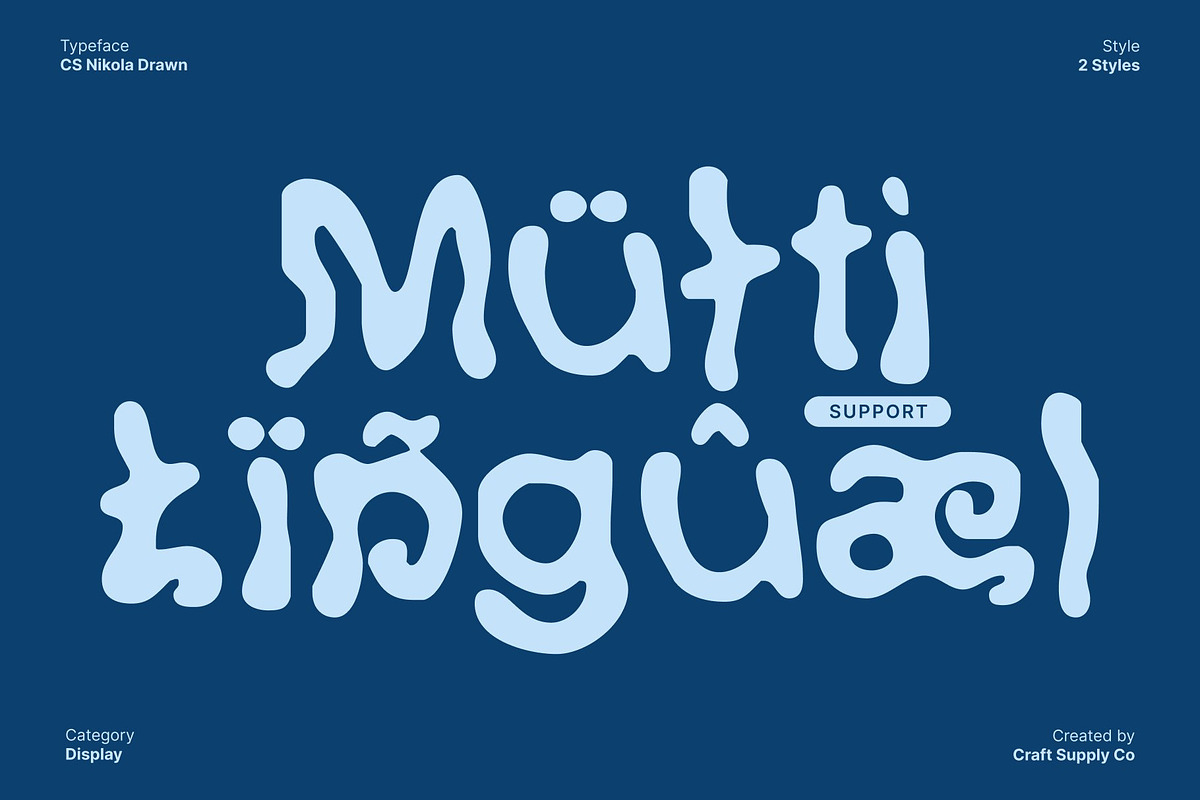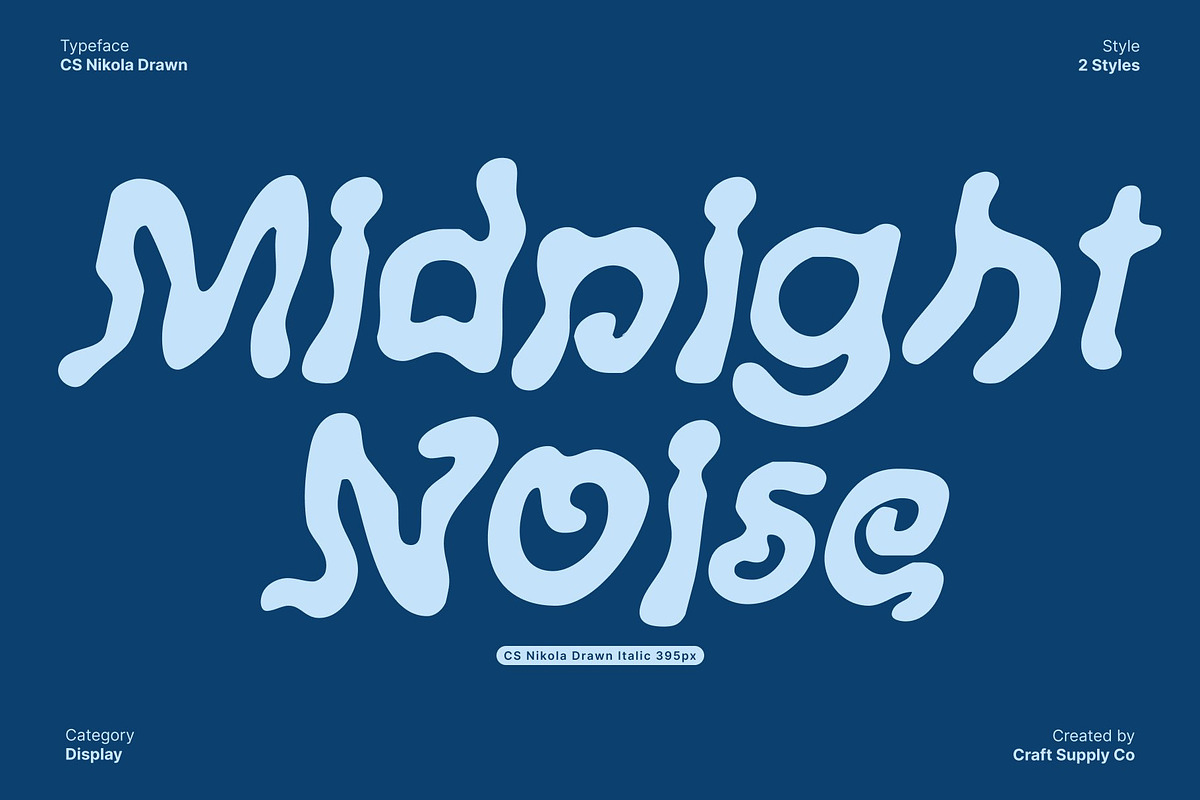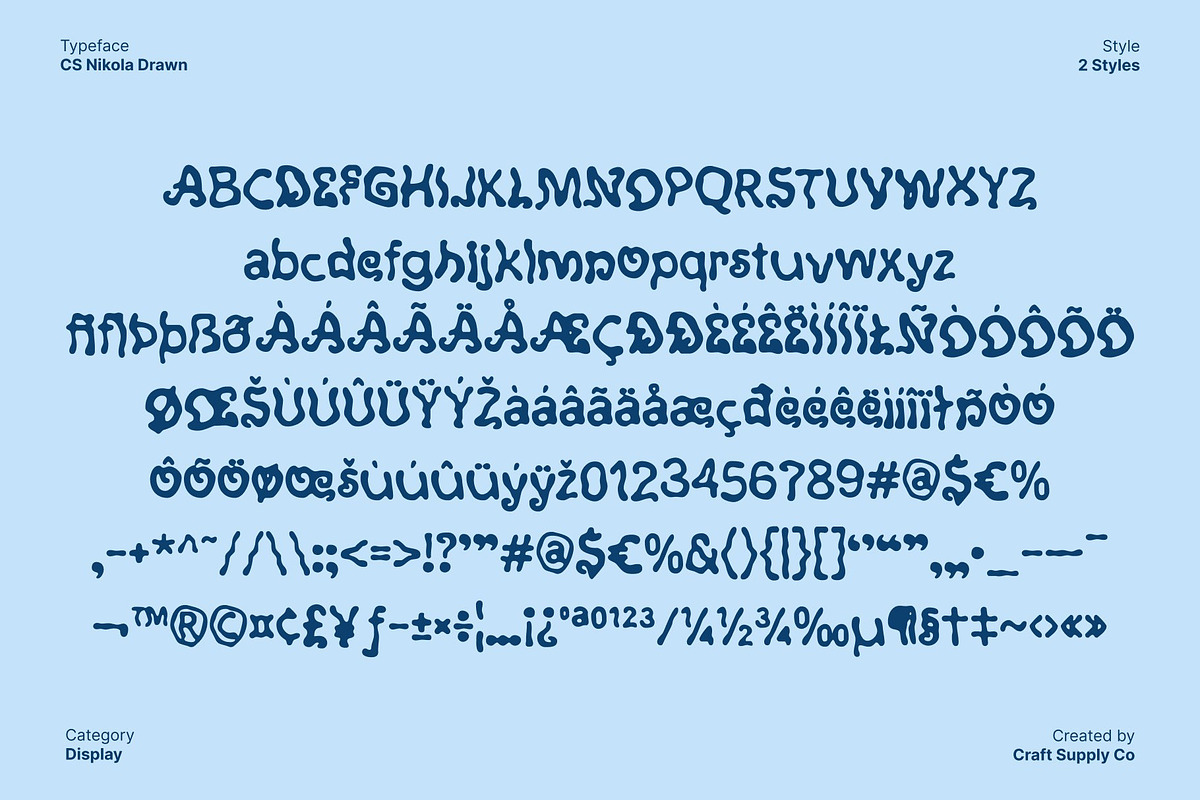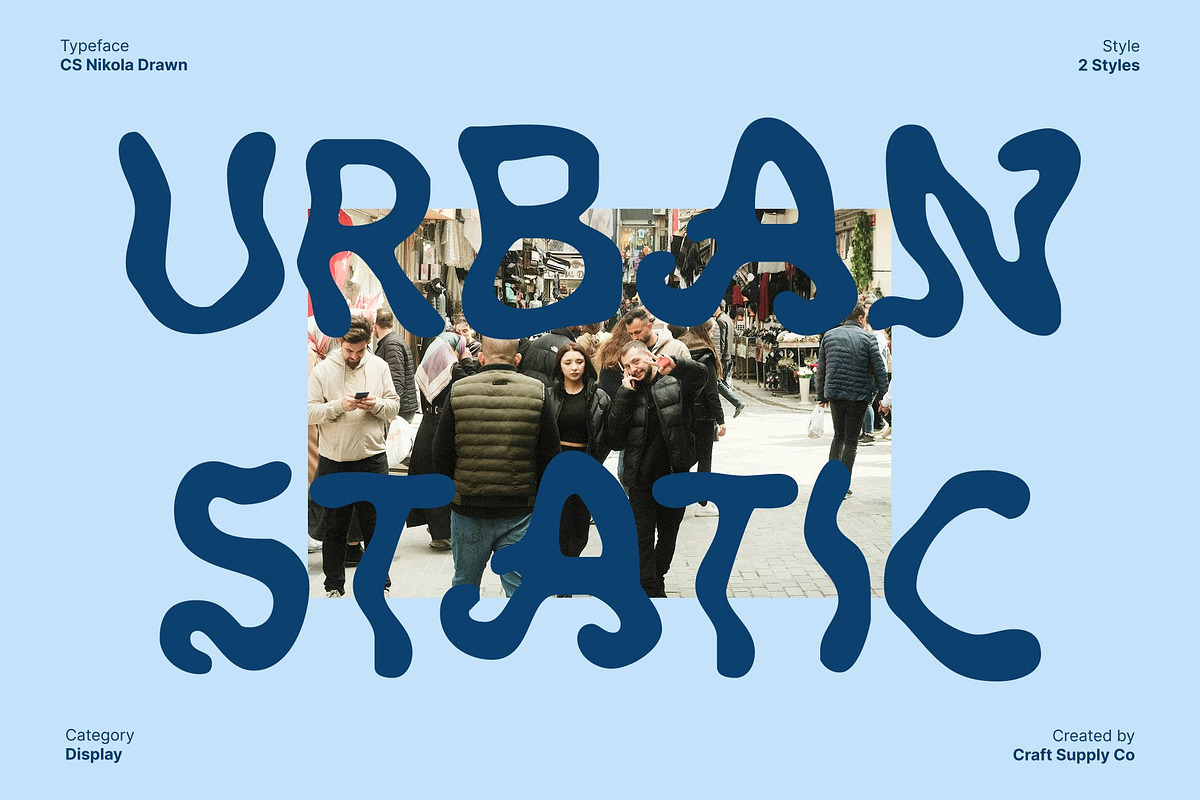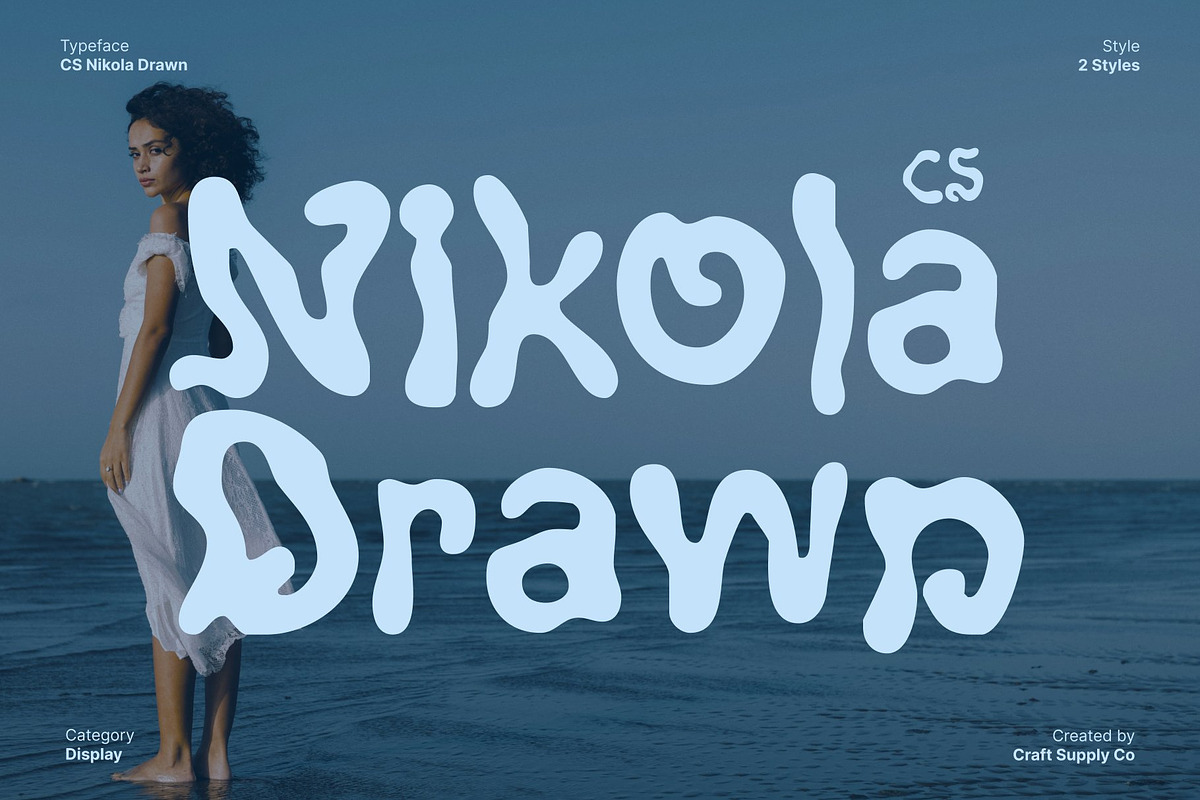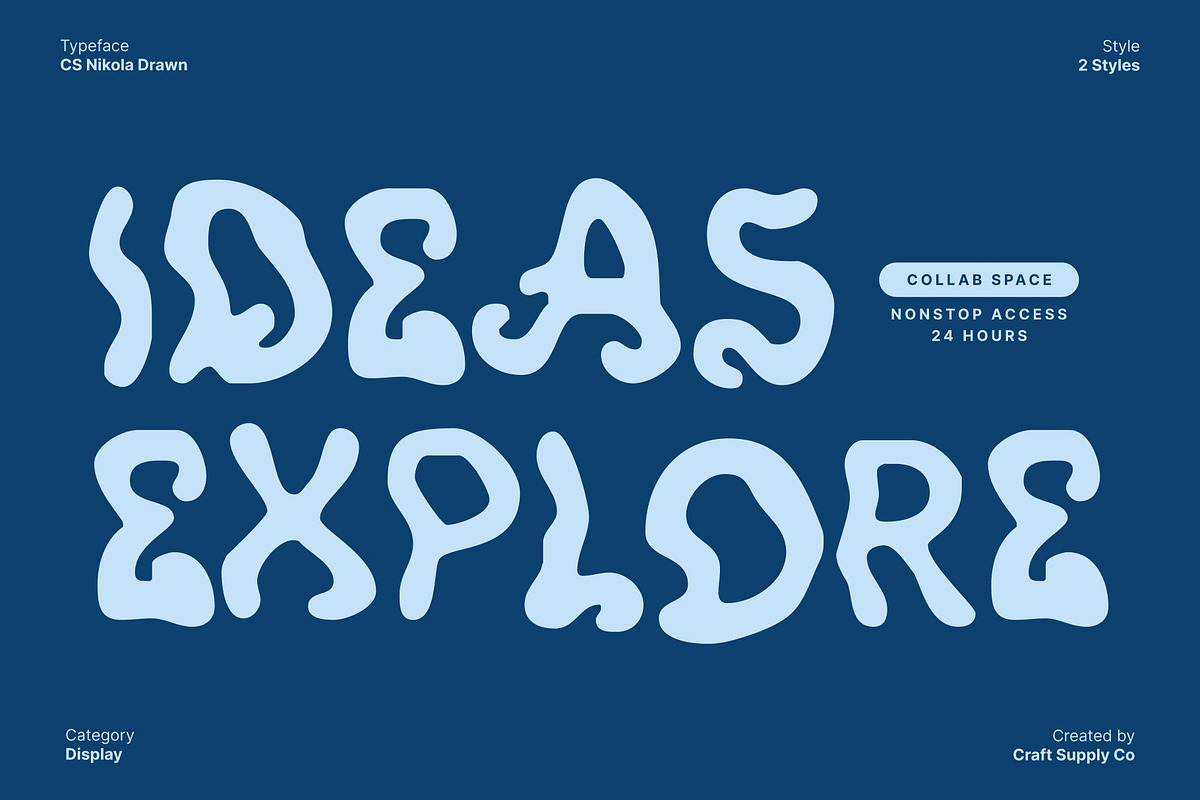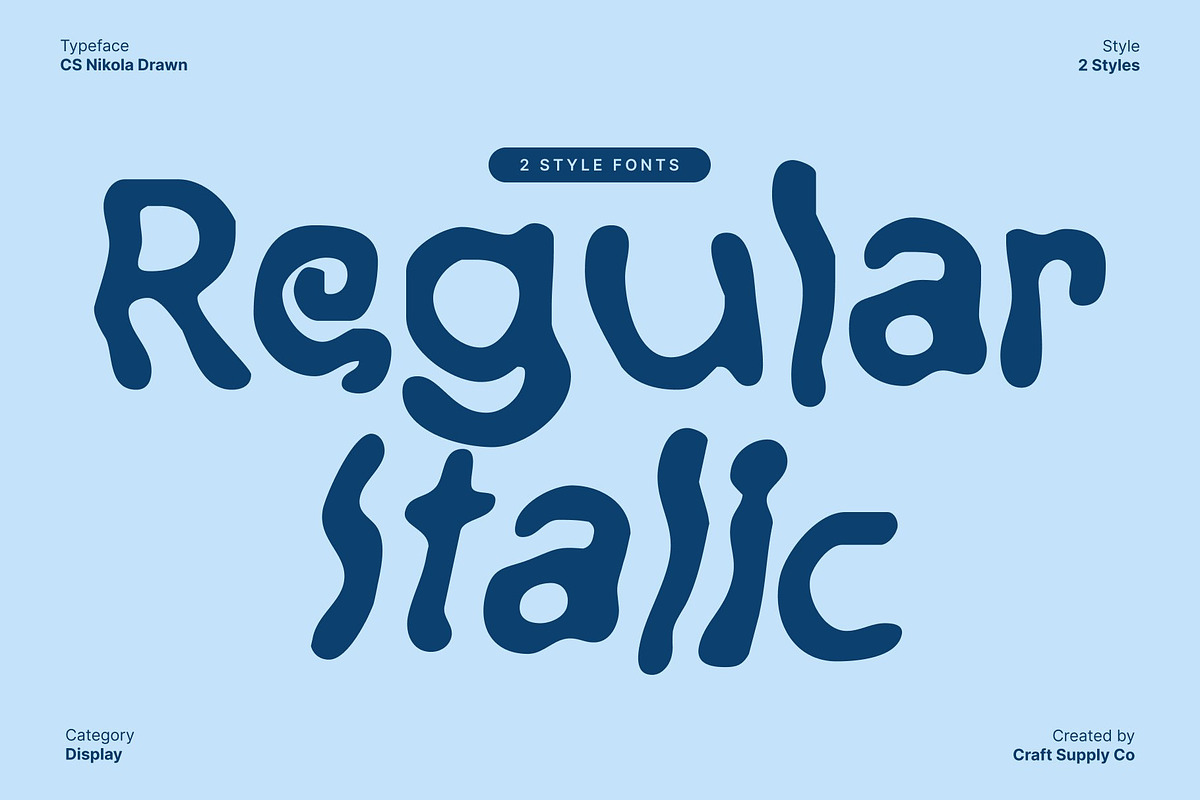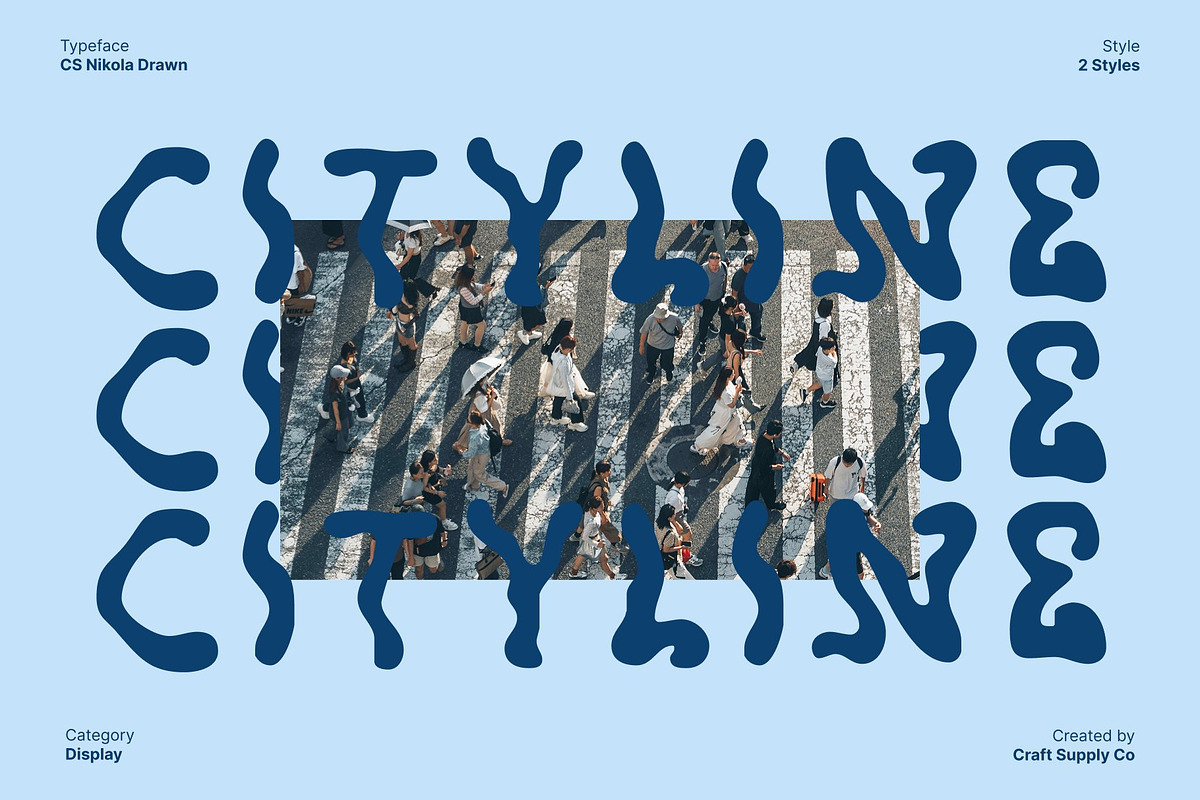
CS Nikola Drawn
CS Nikola Drawn – Etchy Display Font with Bold Artistic Expression
Etchy Hand-Drawn Display Font This is a display font that embraces raw, etchy, and irregular letterforms to deliver a bold handcrafted aesthetic. Designed to look as if it were sketched directly by hand, this typeface features jagged strokes and spontaneous contours that celebrate creative imperfection. The drawn texture gives each character an authentic, expressive quality that feels energetic, honest, and visually striking.
Irregular Forms with Handcrafted Charm The letterforms of this font are intentionally uneven and freeform, creating a dynamic visual rhythm across text. These rough, unpolished shapes add edge and personality, making the font feel alive and emotionally charged. Its etchy construction transforms typography into an artistic statement, perfect for designs that prioritize expression over precision.
Funky Character with Creative Attitude This font radiates a funky, rebellious spirit through its expressive strokes and unconventional structure. The font injects individuality into any layout, encouraging designers to break away from clean, rigid systems. Its hand-rendered look brings movement and attitude, making it ideal for visuals that want to feel personal, bold, and creatively fearless.
Perfect for Artistic, Youthful, and Experimental Projects Designed for expressive applications, excels in music posters, album covers, DIY zines, youth-focused visuals, illustrations, and experimental branding. Its raw aesthetic supports creative freedom and emotional storytelling.